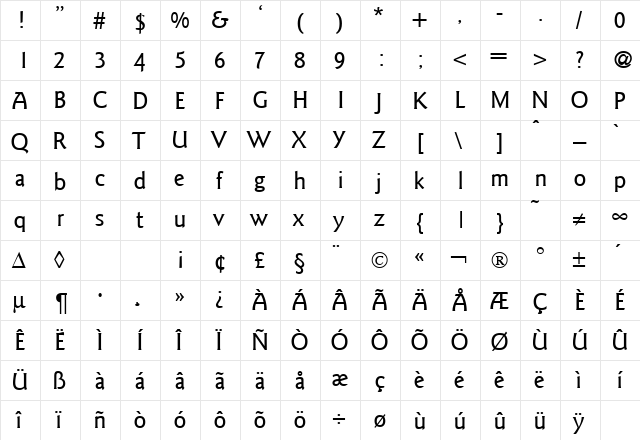
GoudySansTwoMedium Regular
Design Context for GoudySansTwoMedium Typeface
GoudySansTwoMedium is a composed and adaptable typeface that performs quietly and consistently across a wide range of design contexts.